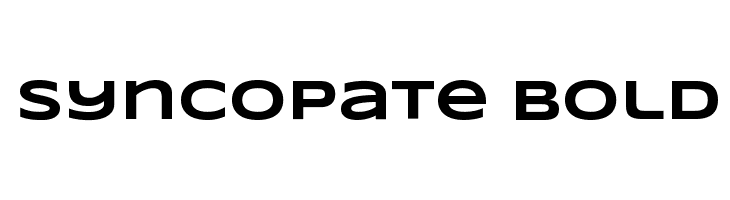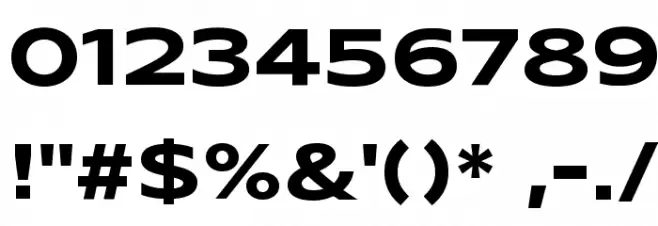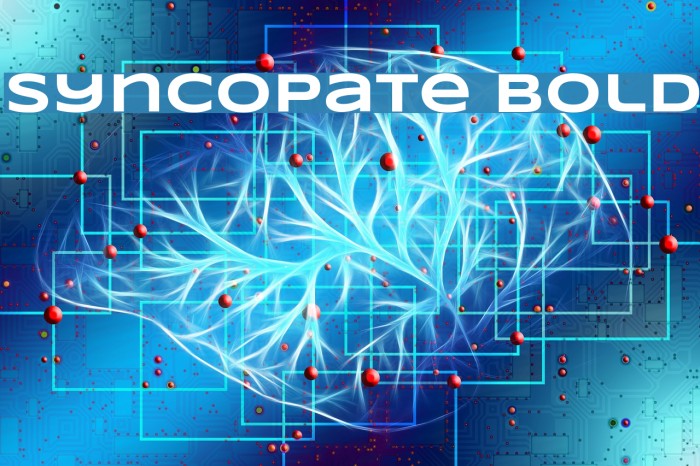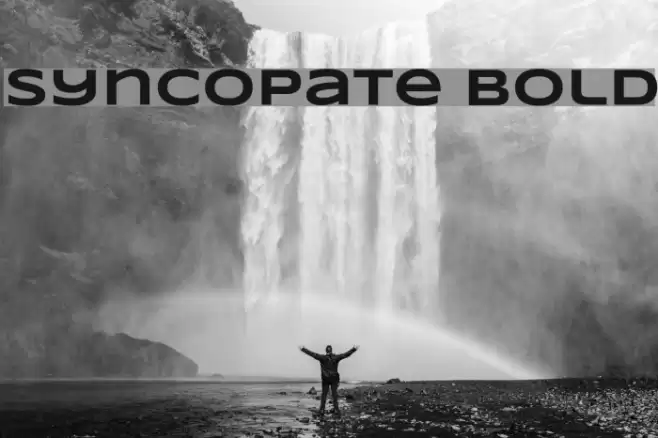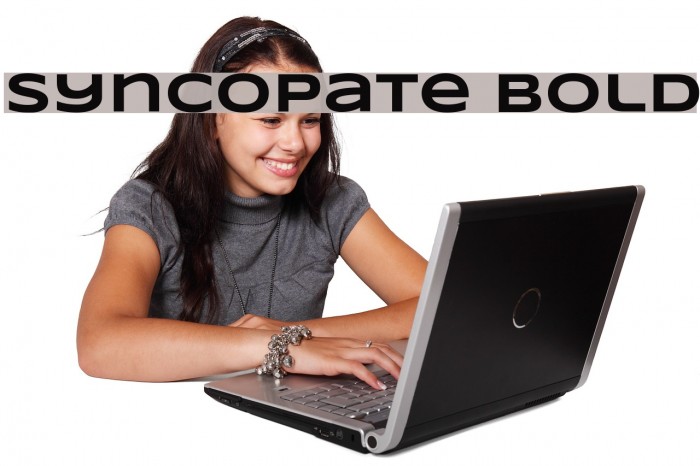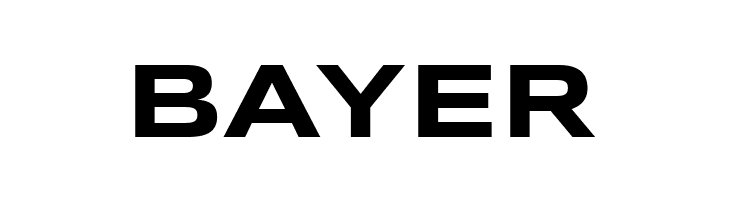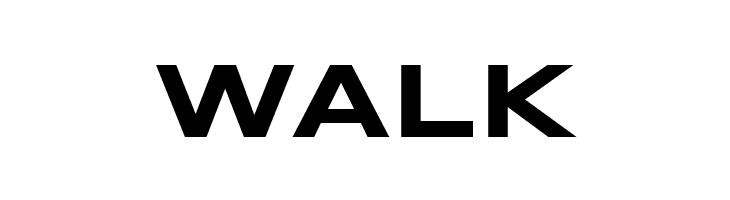
Syncopate Bold Font
Syncopate Bold Description
This font features a bold, modern sans-serif style with clean lines and a strong presence. The characters are evenly spaced, providing a balanced and harmonious look. The uppercase letters are slightly wider, giving them a commanding appearance, while the lowercase letters maintain a consistent height, enhancing readability. The numerals are clear and distinct, making them suitable for various applications. Special characters are well-defined, adding versatility to the font's use. Overall, this font exudes a contemporary and professional vibe, making it ideal for digital and print media.
Fonts by Astigmatic One Eye Typographic Institute - Brian J. Bonislawsky - astigmatic.com
| Use Case | Headlines, Logos, Digital media |
| Proposed Projects | Ideal for branding, advertising, digital media, headlines, and signage. |